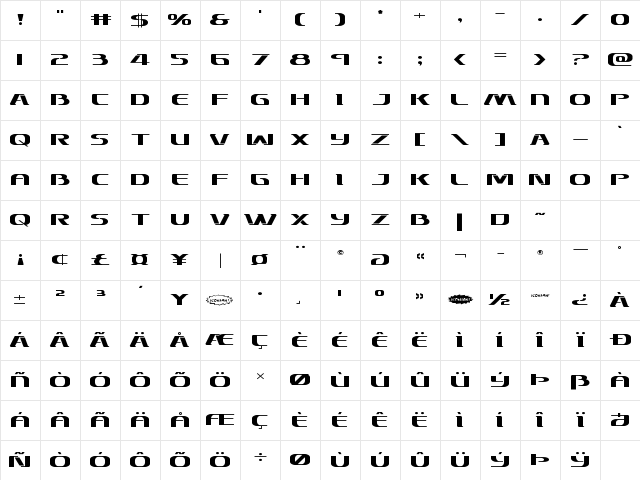
Complete Sky Marshal Expanded glyph index. Displaying only characters natively supported by Sky Marshal Expanded font.
Sky Marshal is a composed and adaptable typeface that performs quietly and consistently across a wide range of design contexts.